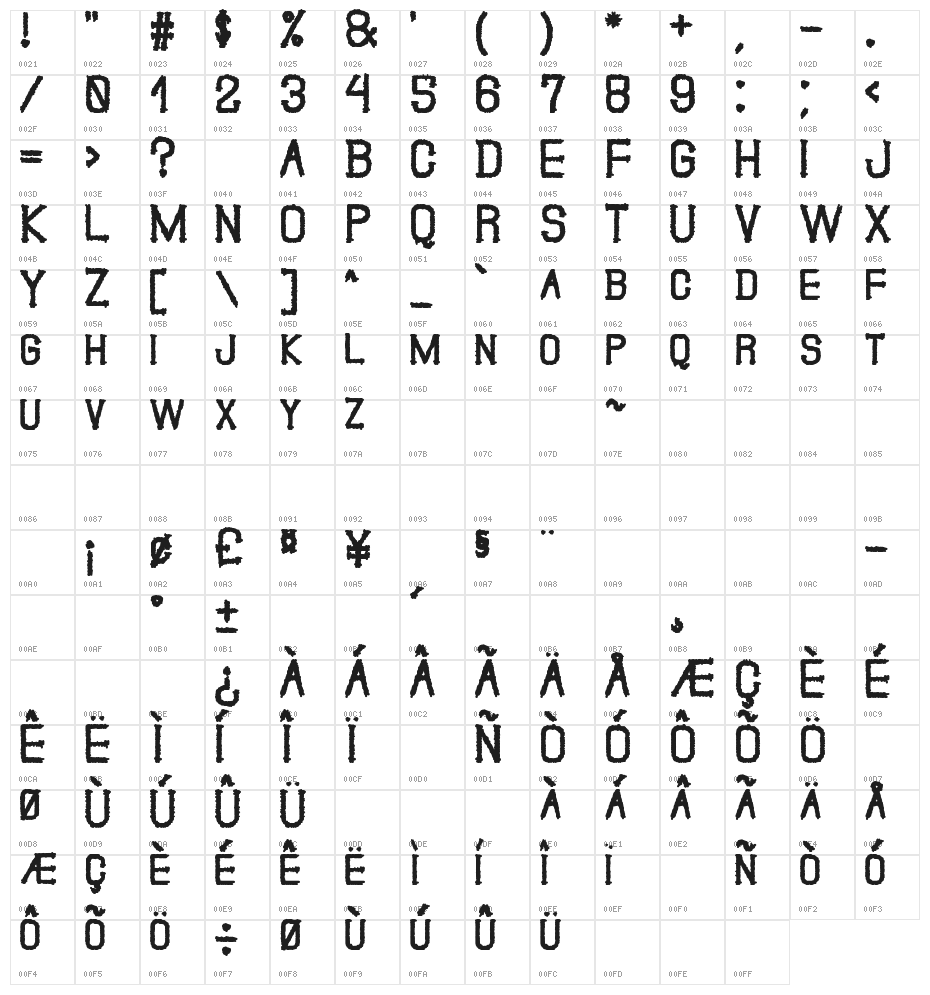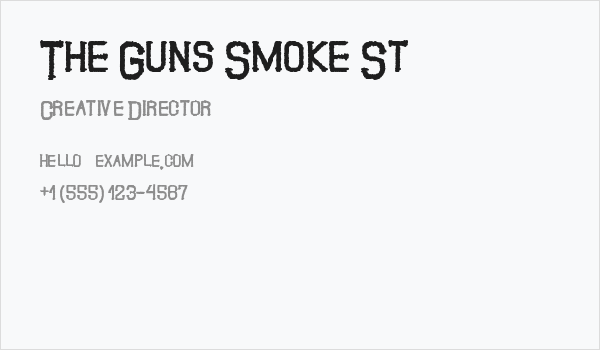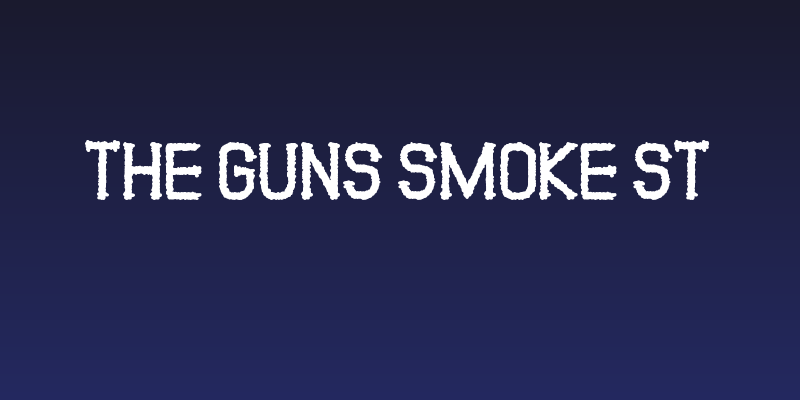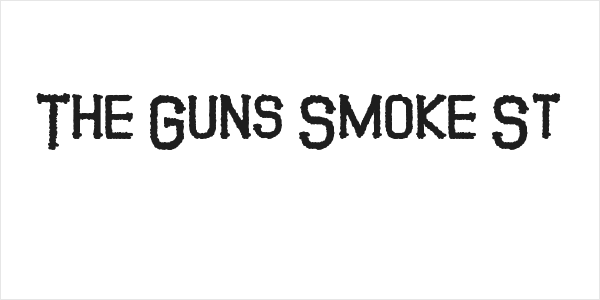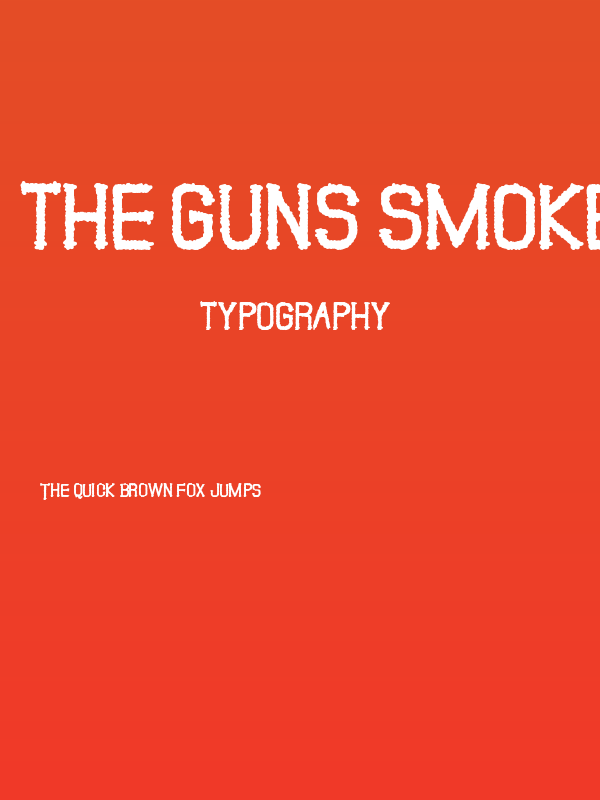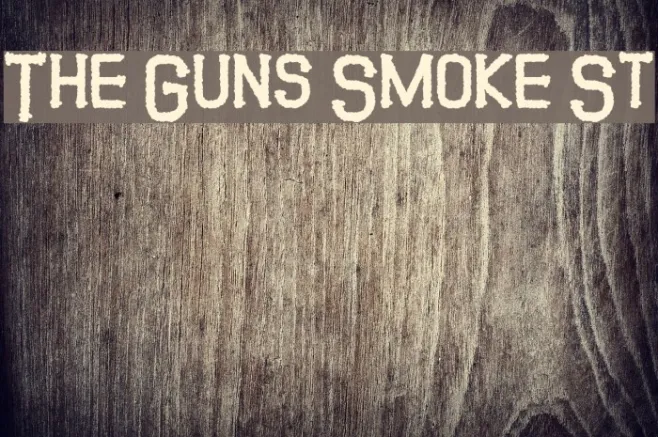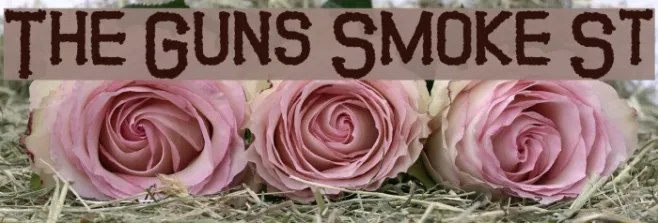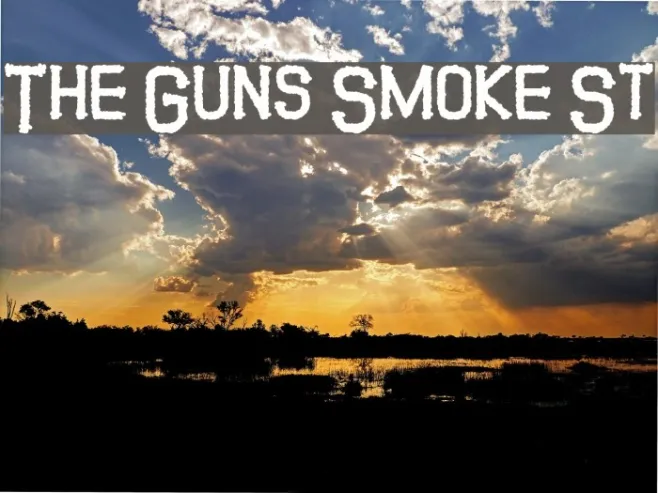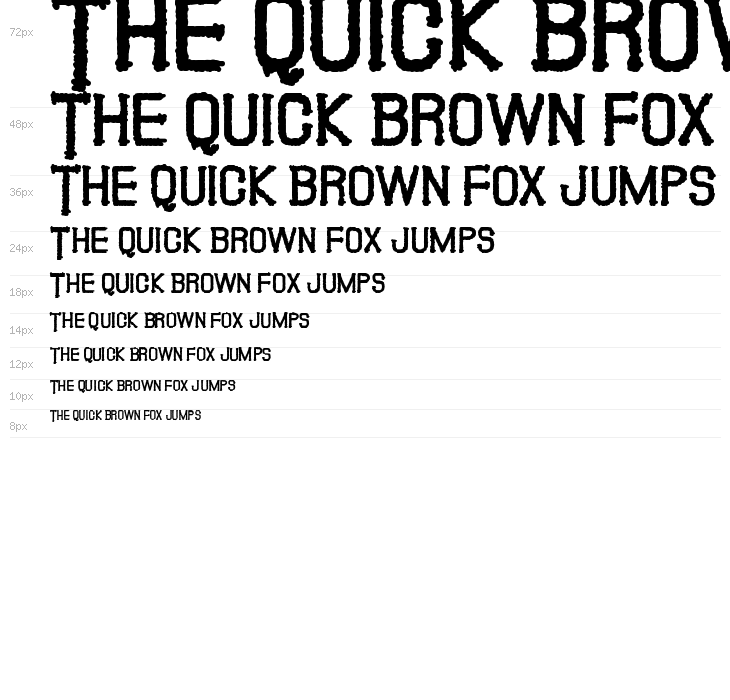
The Guns Smoke St Font
The Guns Smoke St Description
This font features a rugged, distressed style reminiscent of old western typography. The characters have a rough, textured appearance, giving them a vintage and worn look. The uppercase letters are bold and prominent, while the lowercase letters maintain the same rugged aesthetic. Numbers and special characters follow the same design, ensuring consistency across all glyphs. The font's unique style makes it ideal for projects that require a touch of nostalgia or a rustic theme.
| Proposed Projects | Perfect for posters, branding, and designs that require a vintage or rustic theme, such as western-themed events or historical recreations. |